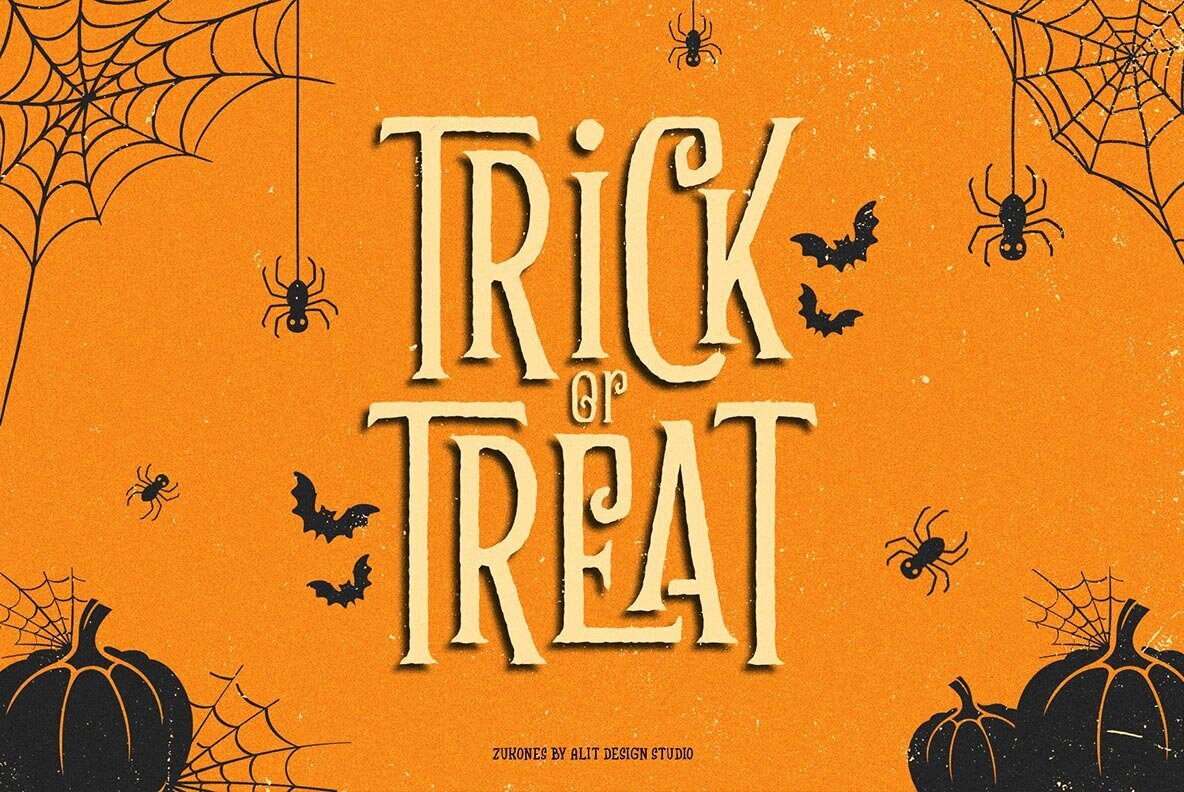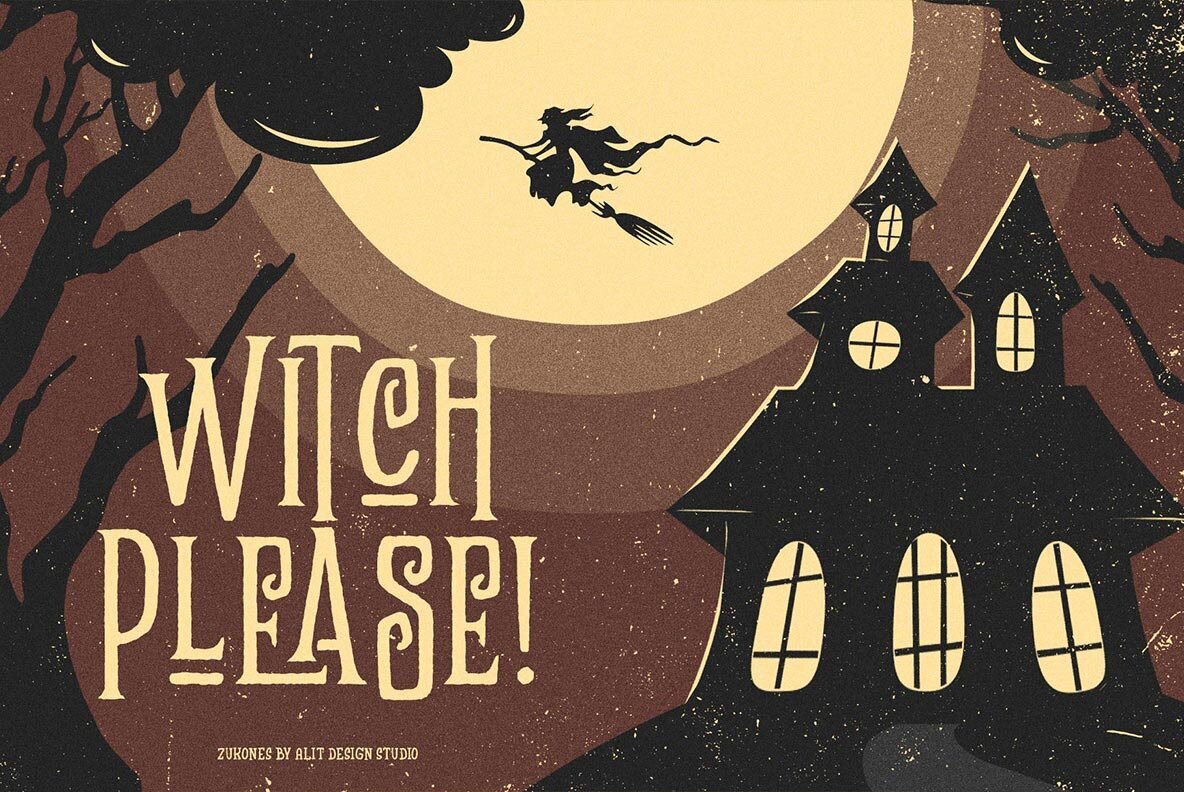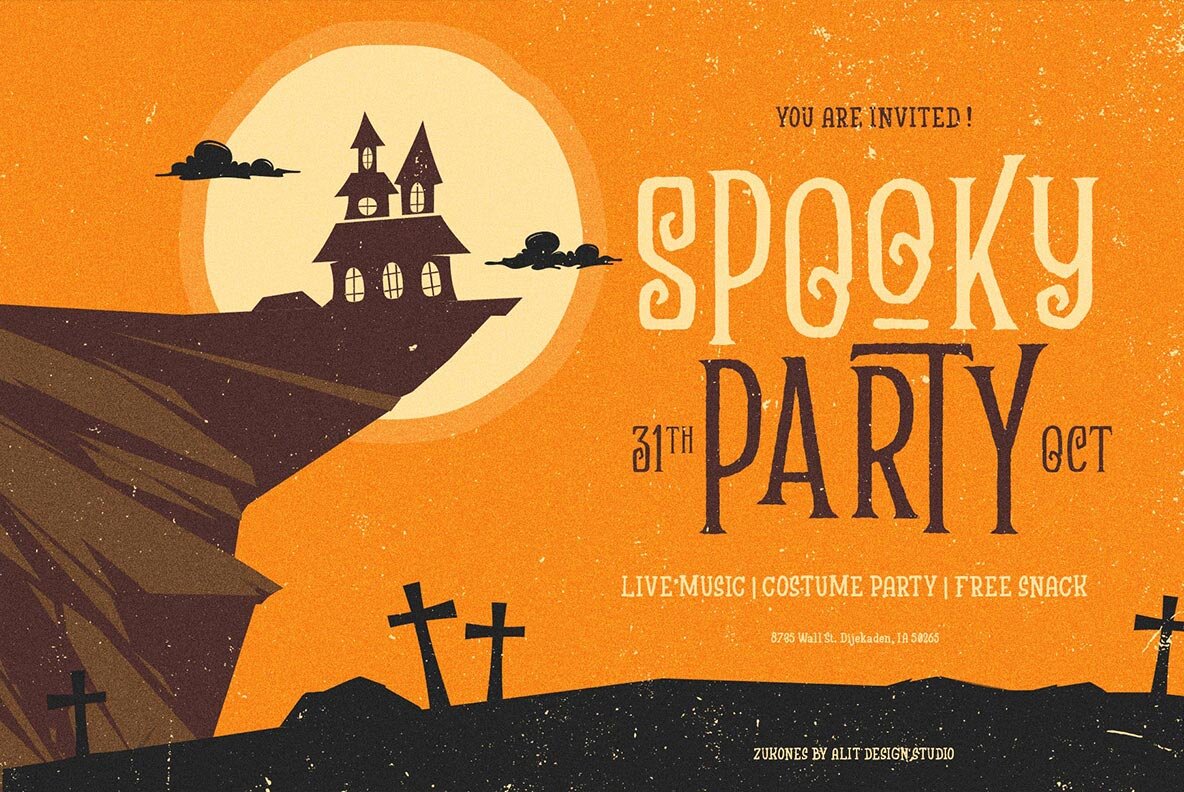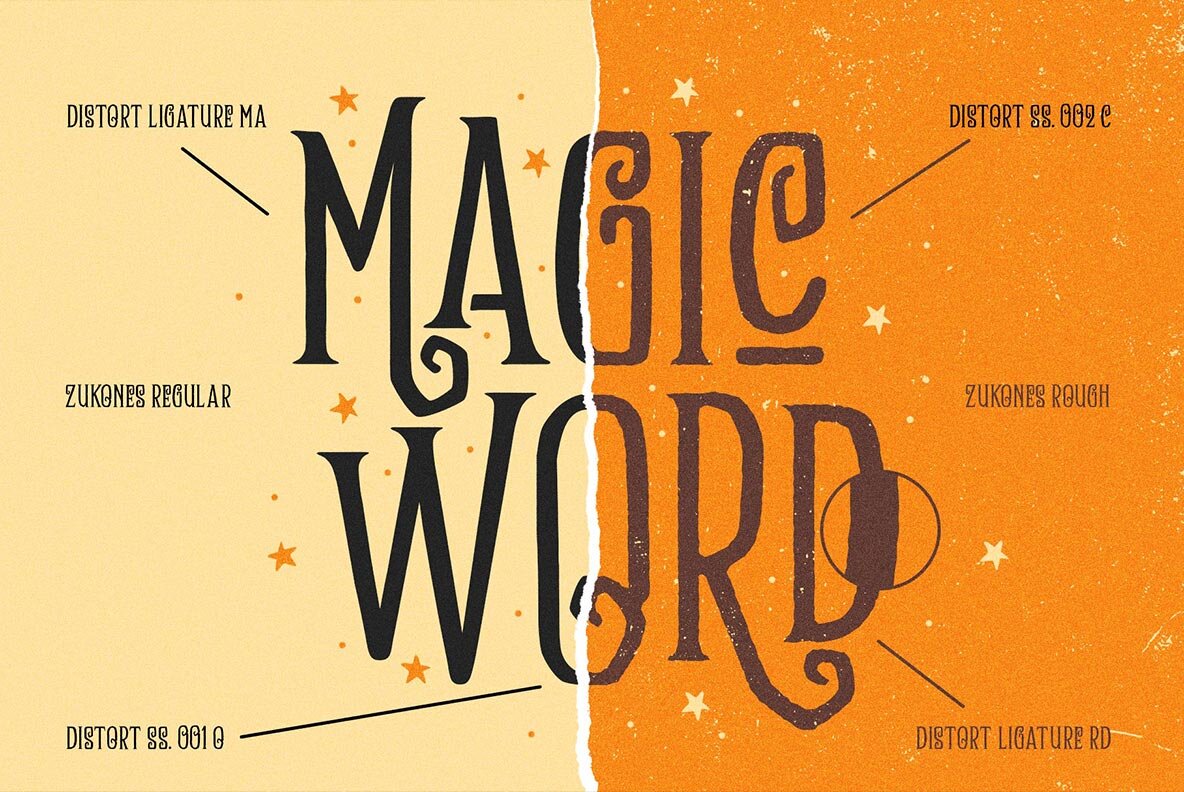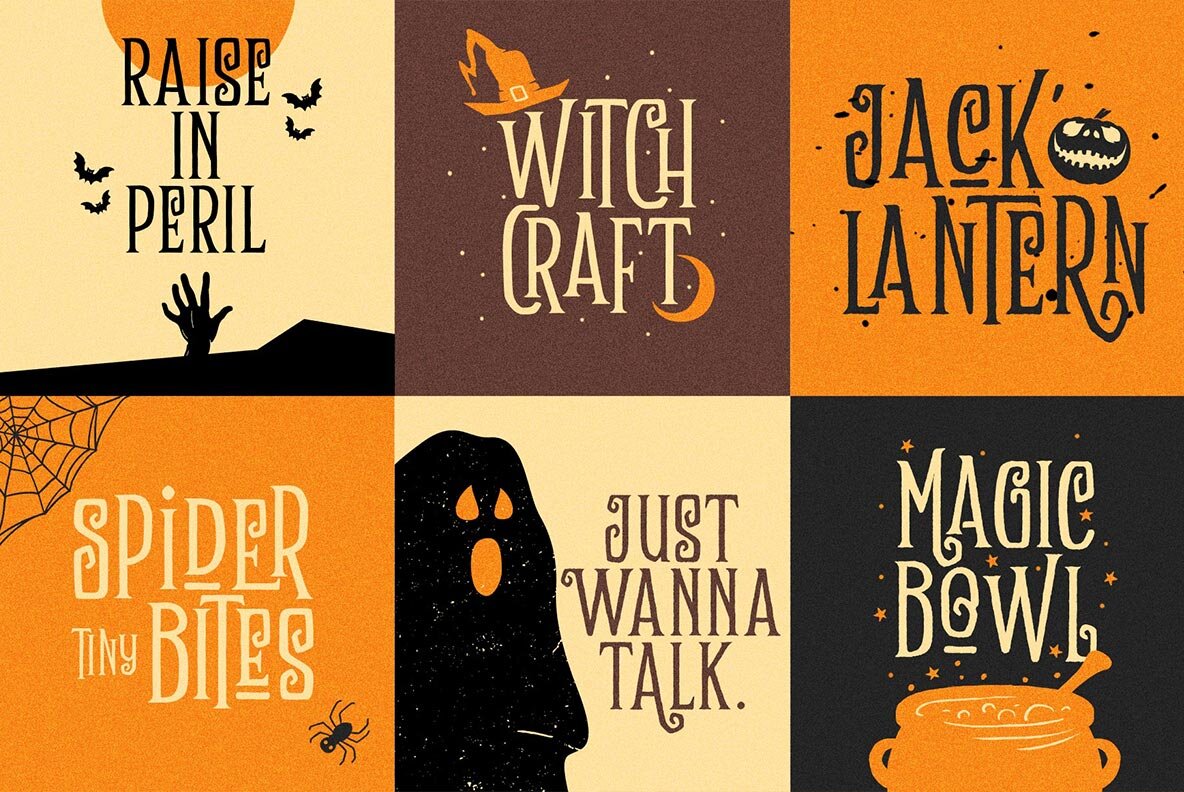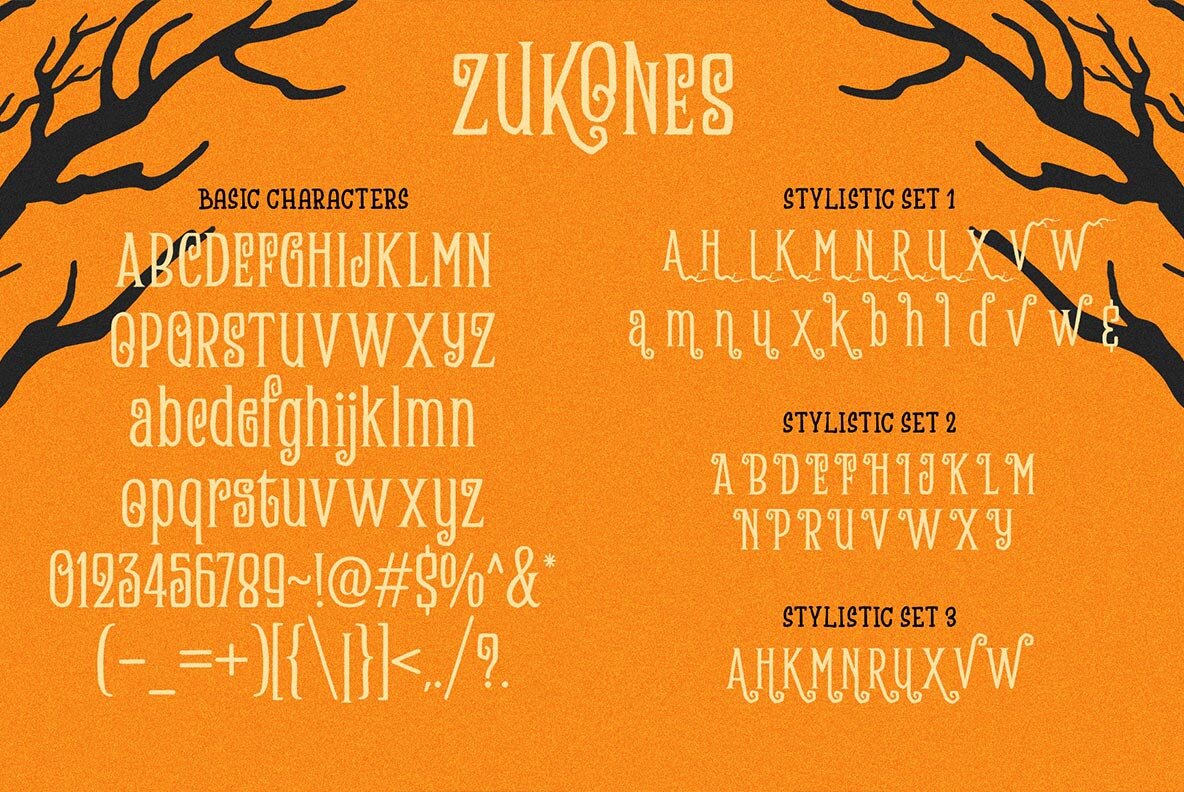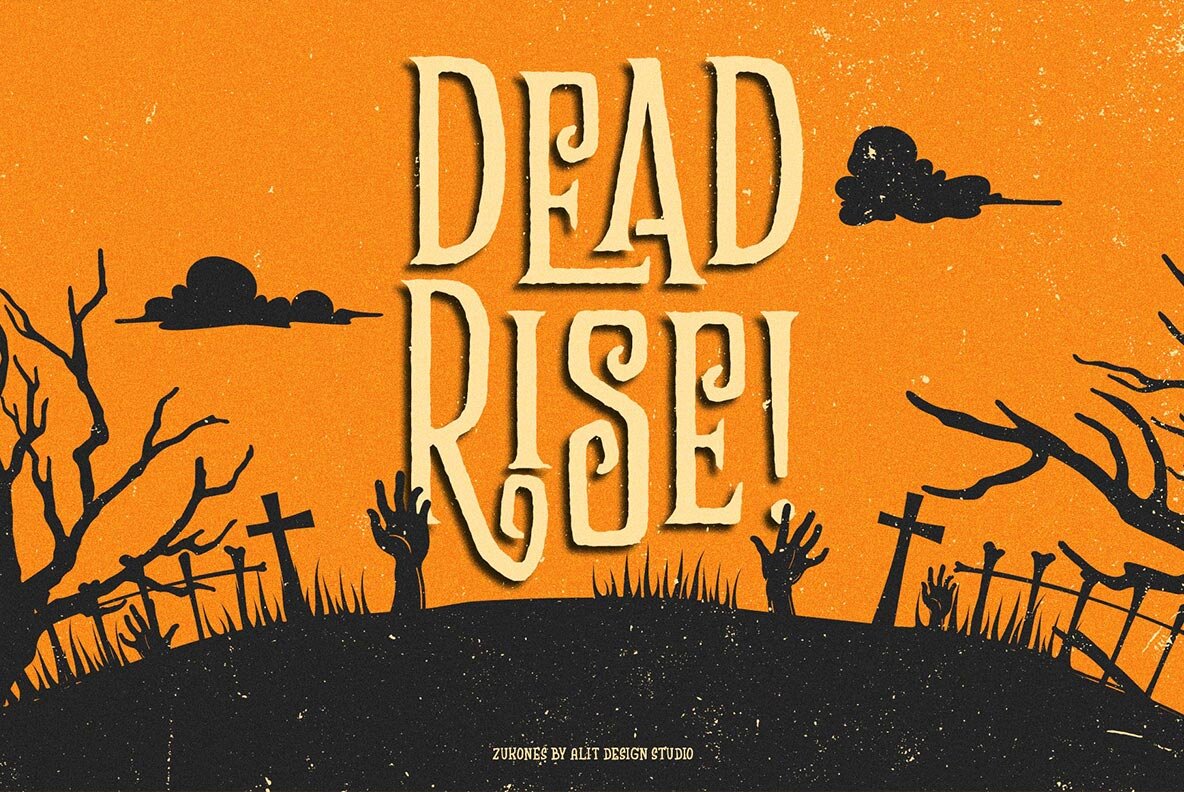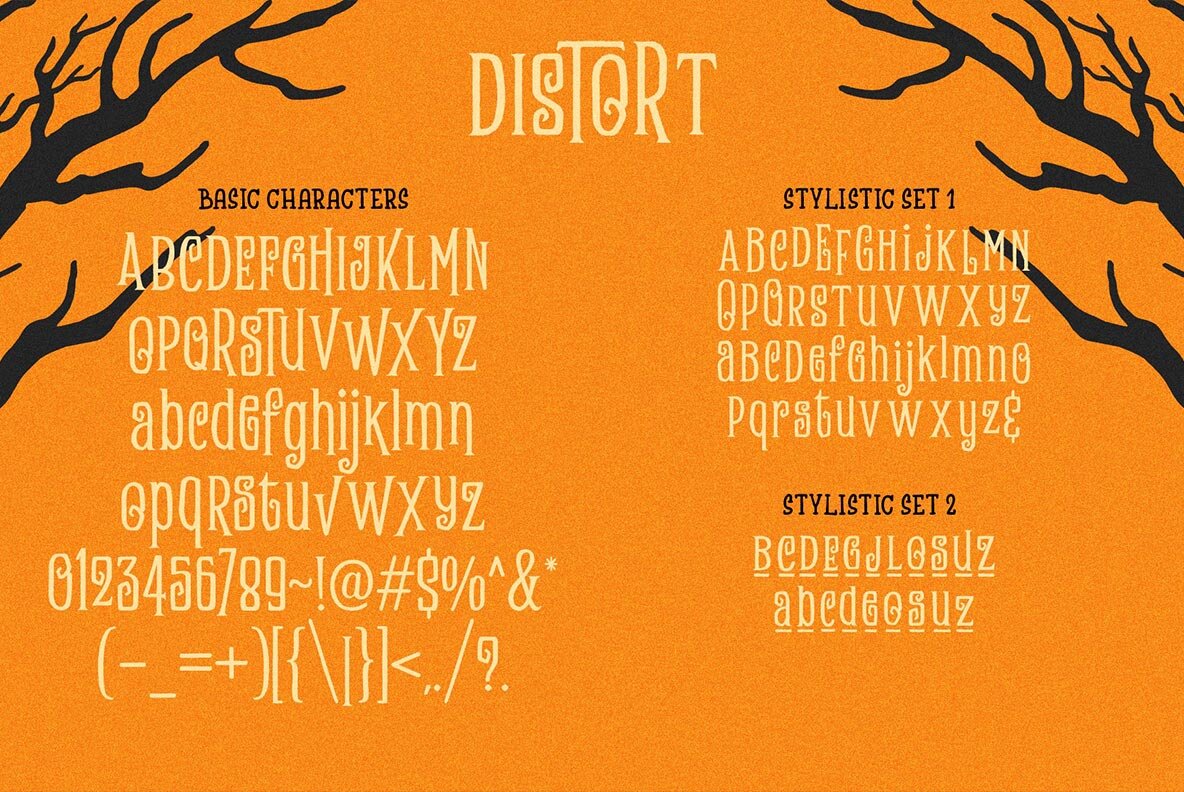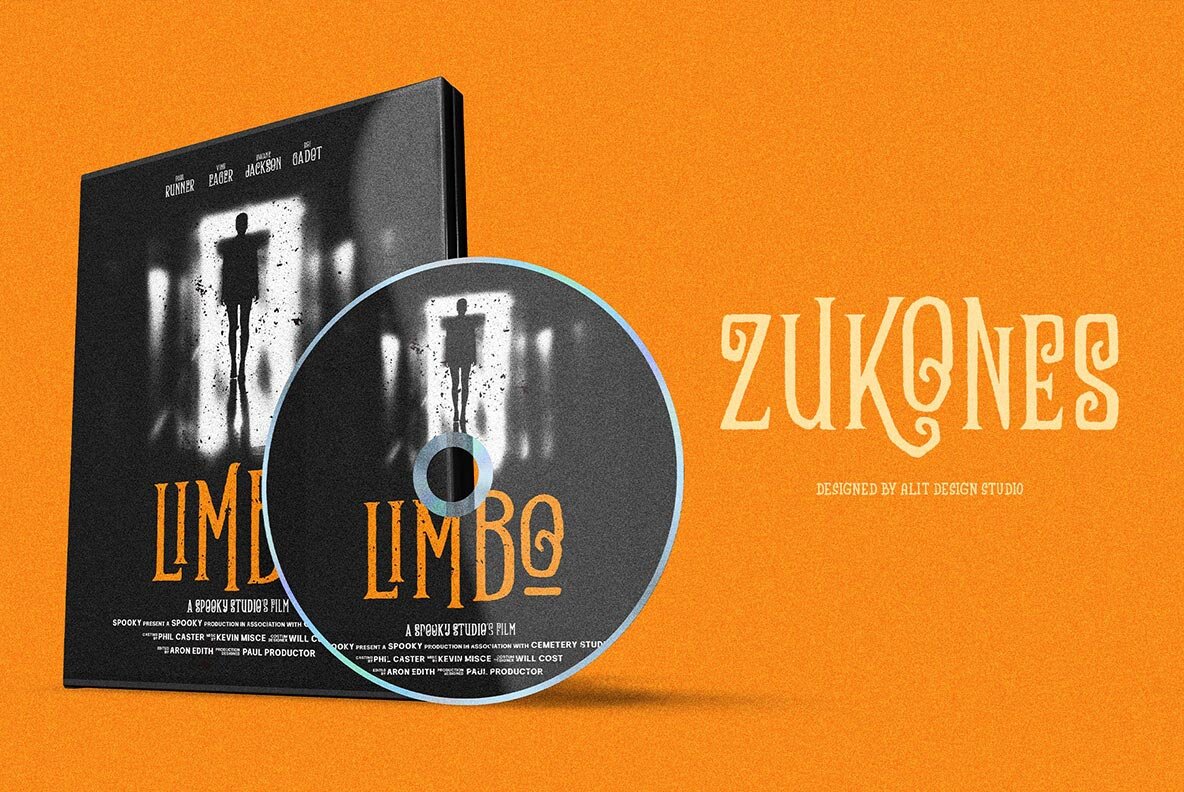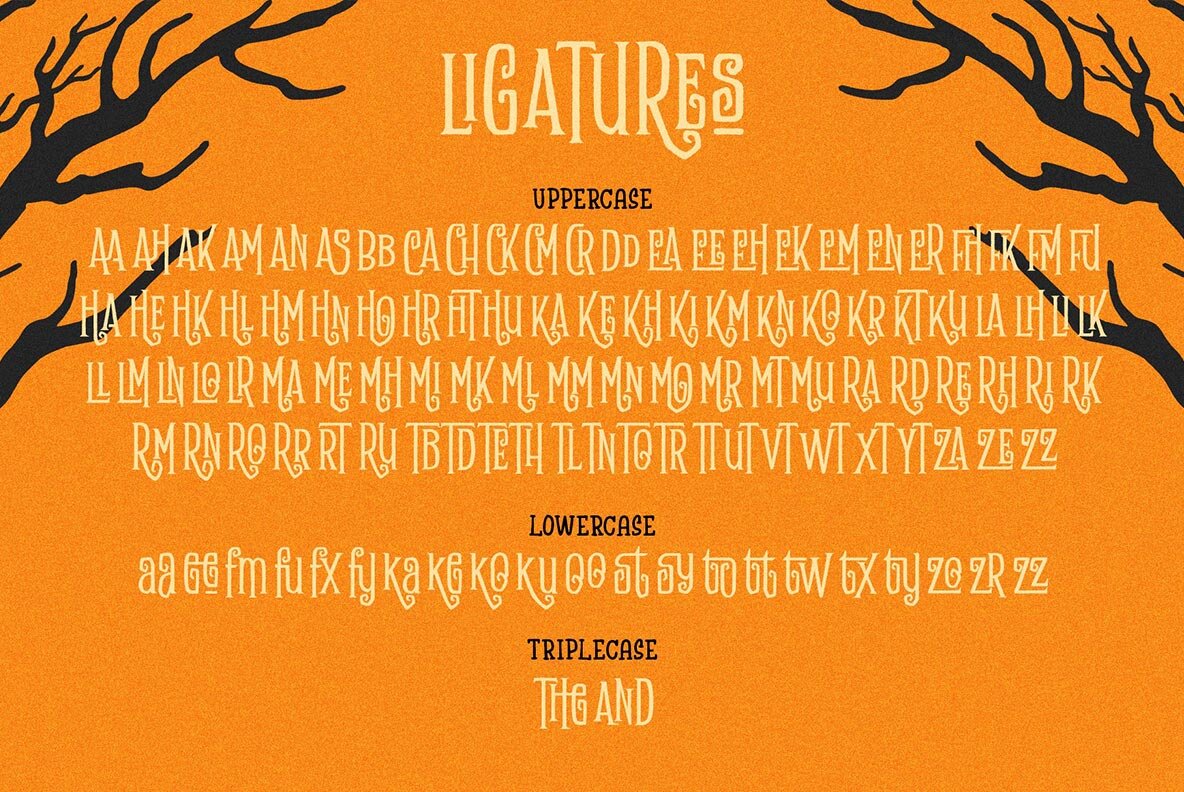
The Zukones Font
Zukones Bonus Regular
Zukones Distor Regular
Zukones Distor Rough Regular
Zukones Regular
Zukones Rough Regular
The Zukones by Alit Suarnegara offers a unique twist on traditional typefaces, perfect for capturing the whimsical yet eerie essence of Halloween. Designed to evoke a sense of playfulness and mystery, this typeface serves as an ideal choice for seasonal projects, be it in branding, invites, or promotional materials.The Zukones: Distinctive Halloween Typeface